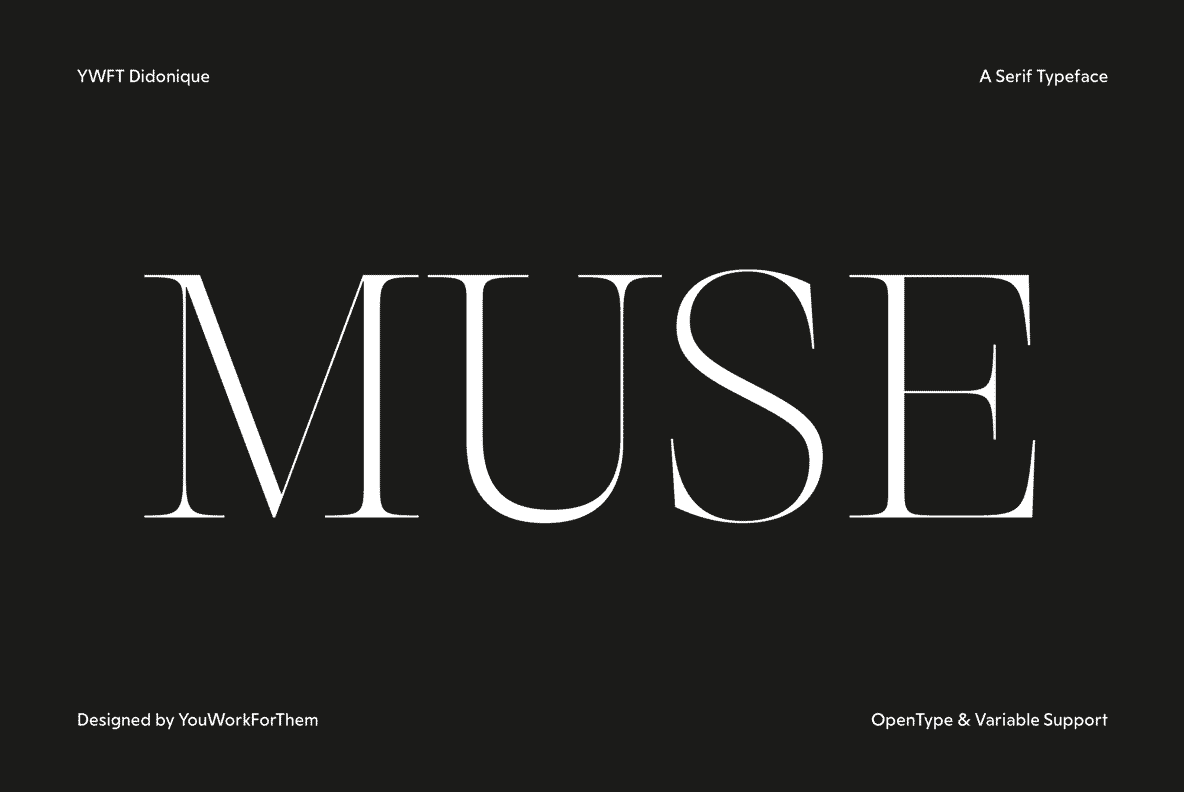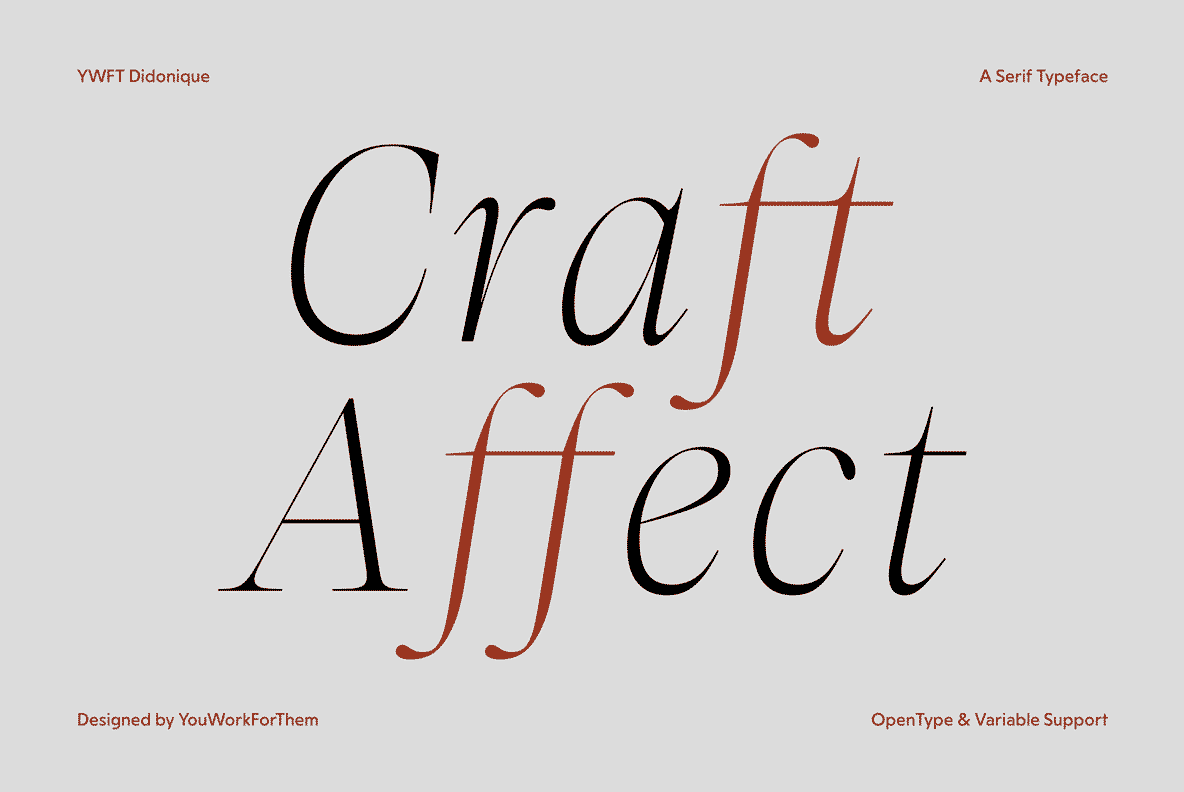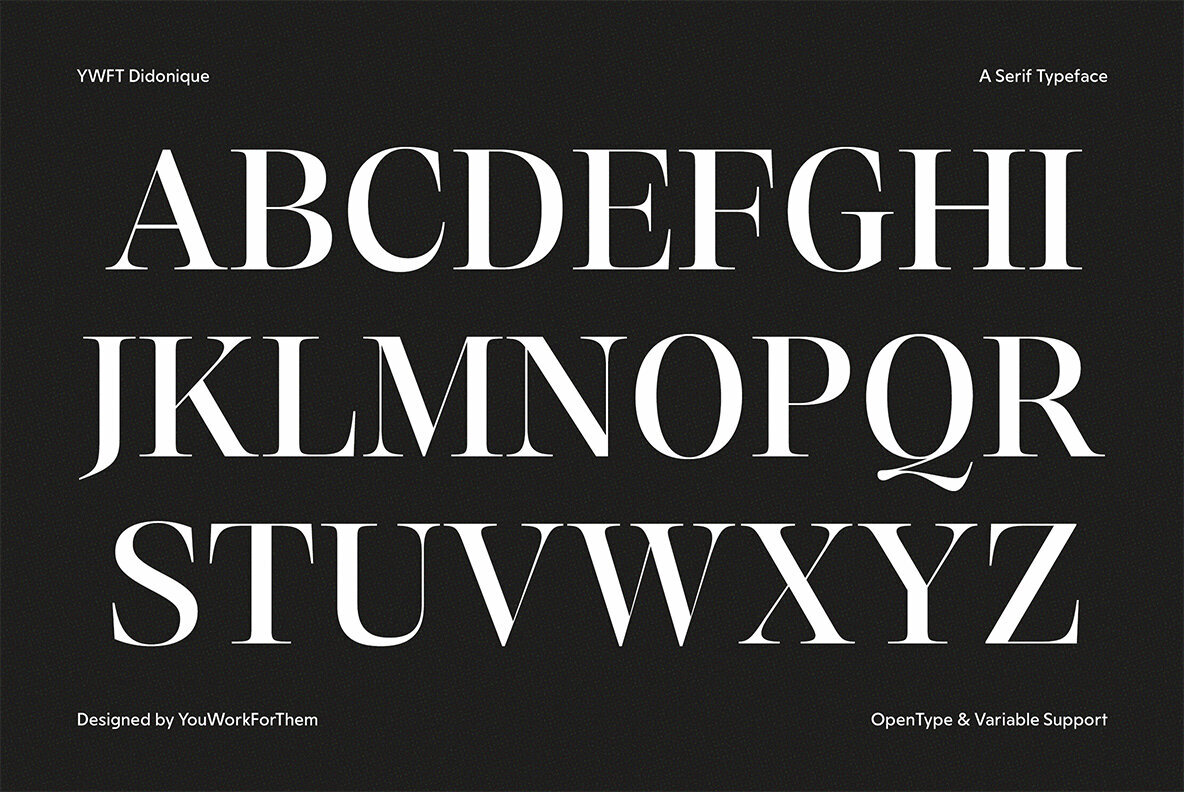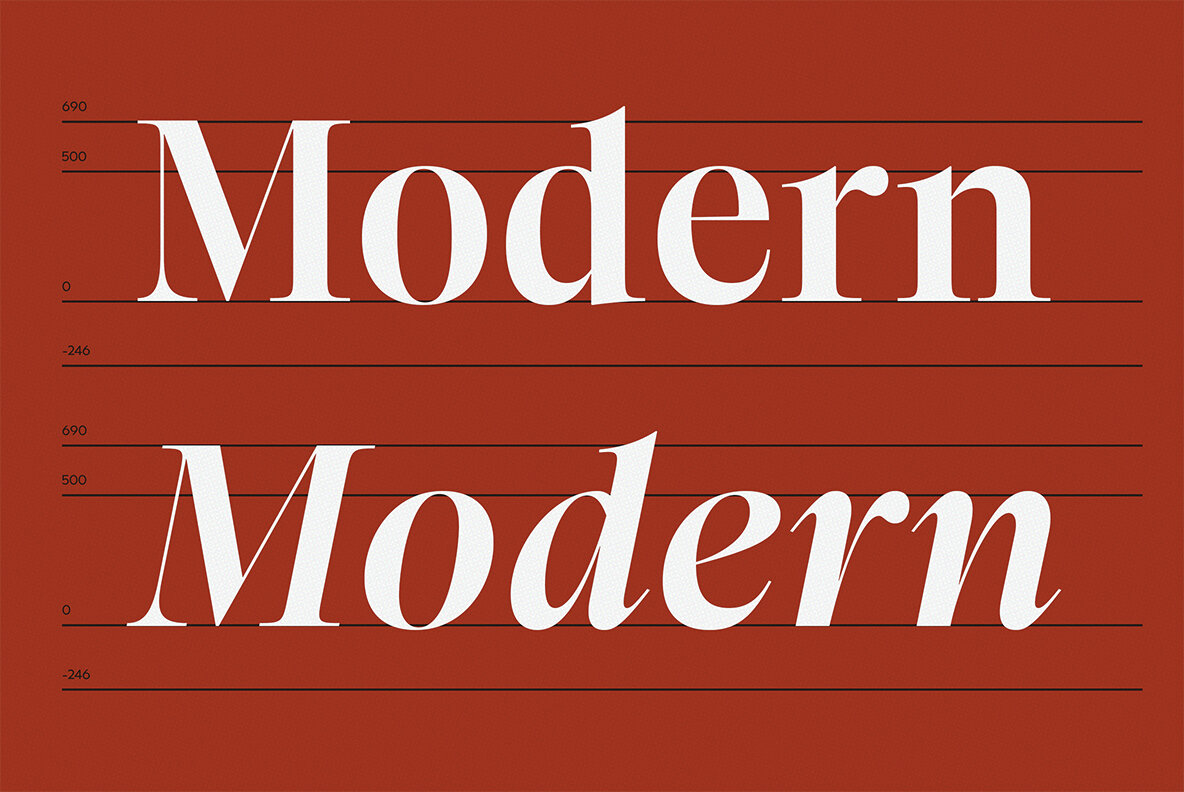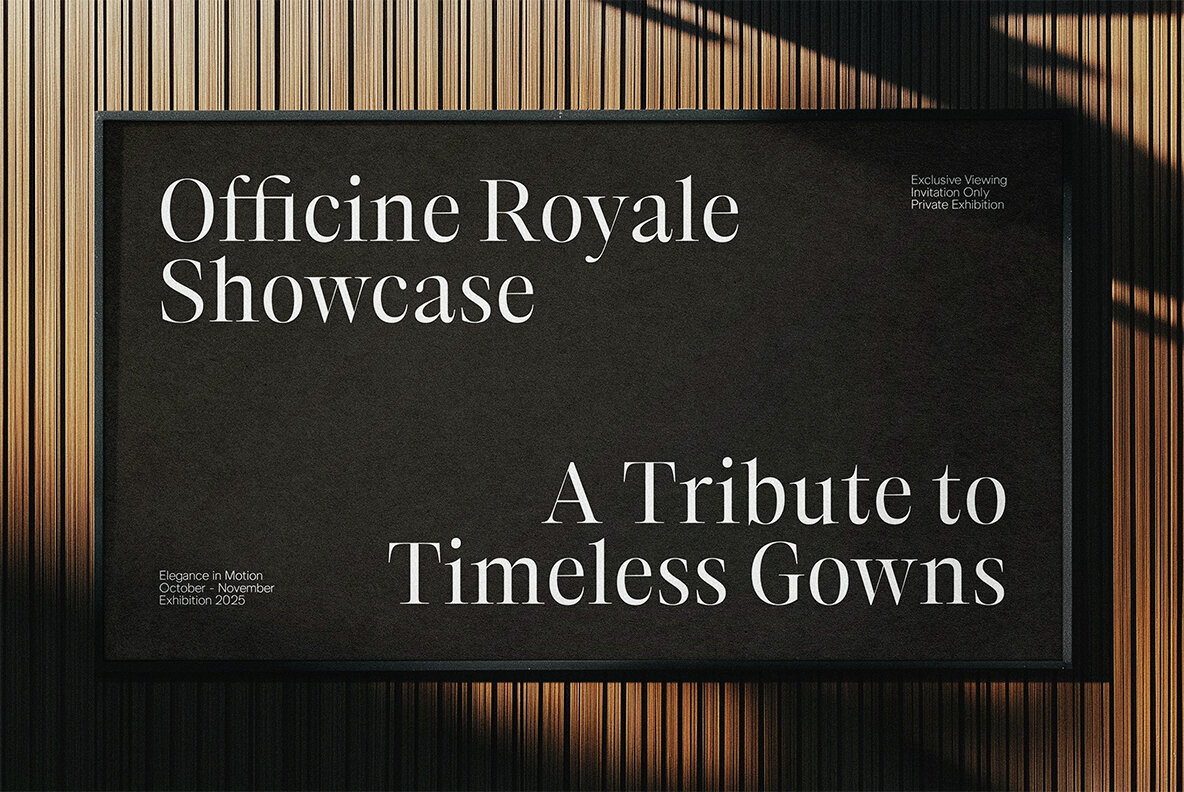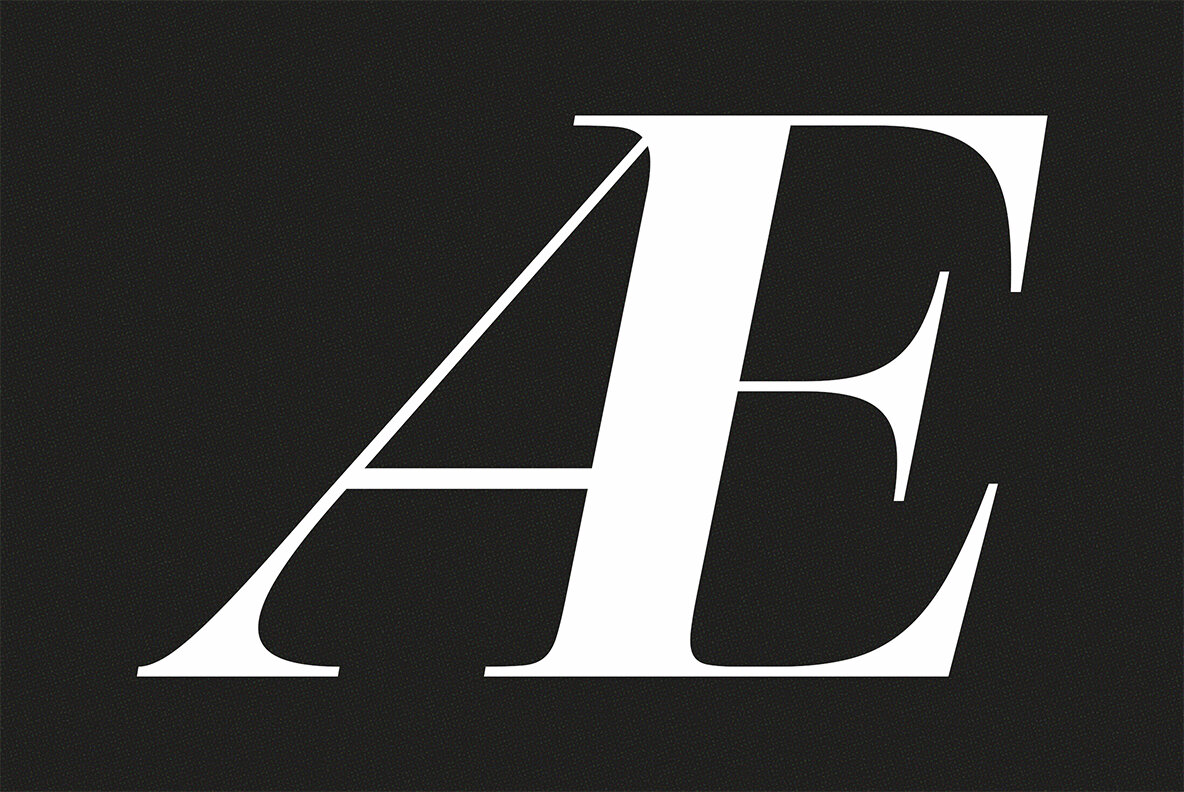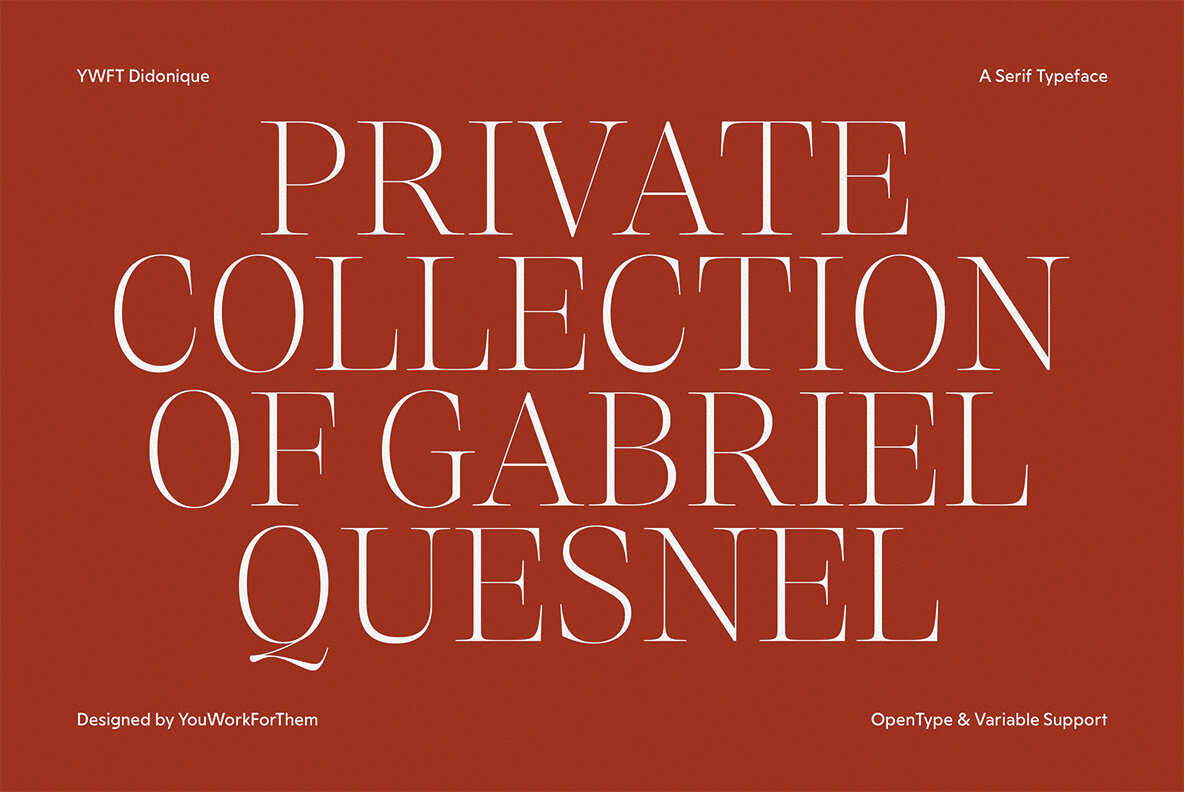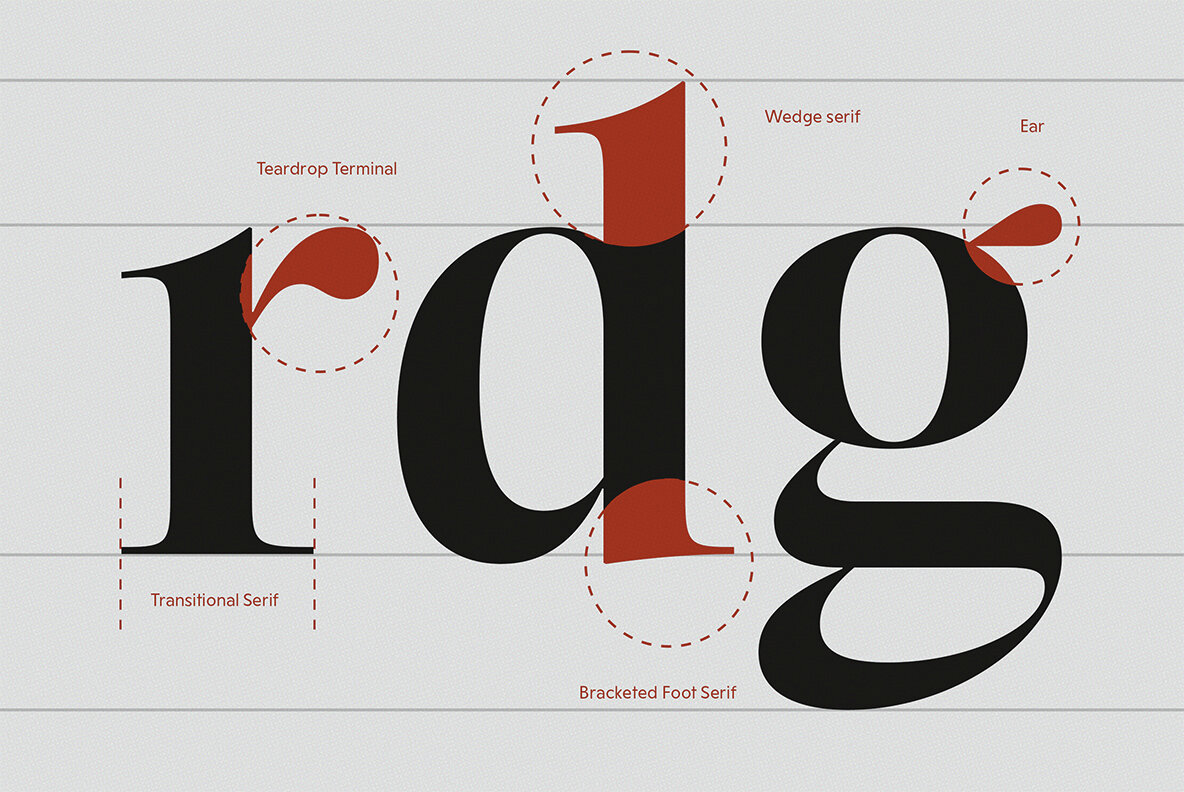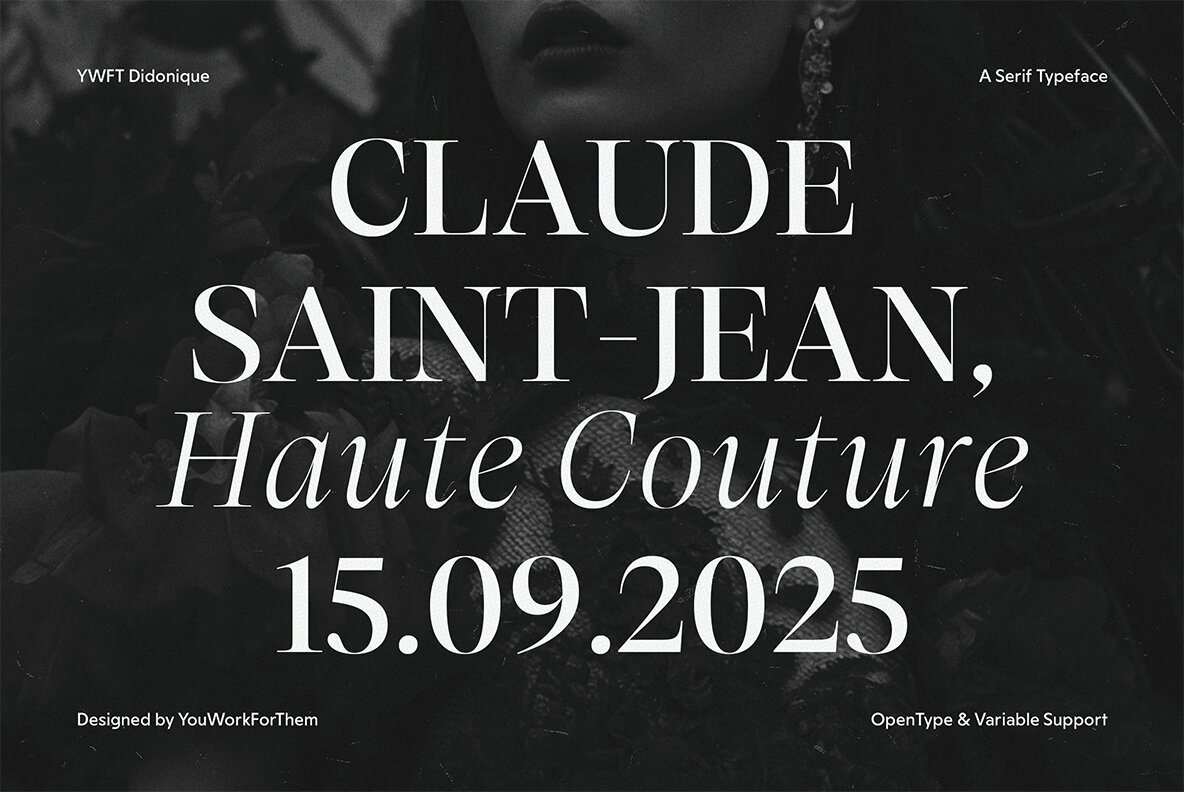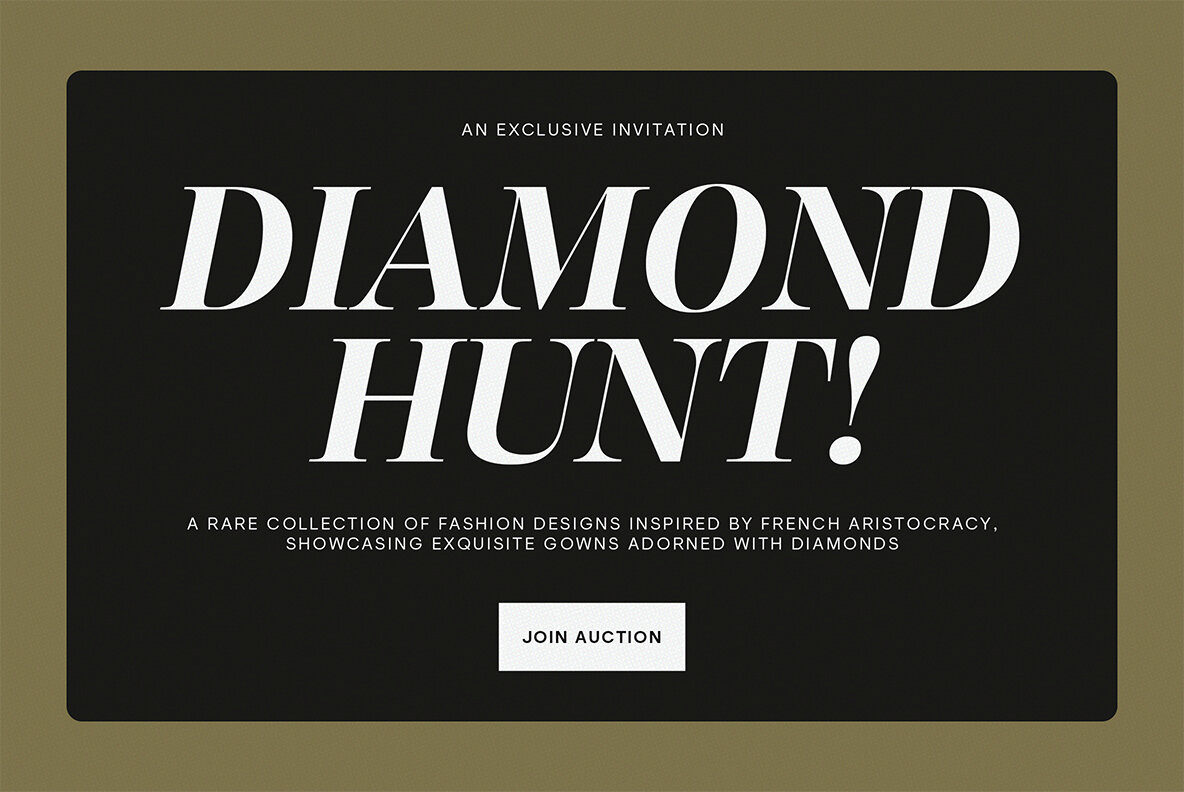
YWFT Didonique Font
Some fonts demand attention. Others exude quiet confidence. YWFT Didonique does both. A masterfully crafted serif font with the refined structure of a Didone typeface, this modern classic delivers the sophistication of high fashion typography while embracing the versatility required for contemporary design. Typography has always been a cornerstone of design, but YWFT Didonique takes it a step further—elevating every composition with its distinct high-contrast letterforms and razor-sharp serifs. Designed with luxury branding, editorial layouts, fashion campaigns, and high-end packaging in mind, this sophisticated serif font adds a sense of authority and elegance to any visual language. A well-rounded type system is essential for any designer, and YWFT Didonique delivers: Typography knows no borders, and neither does YWFT Didonique. With support for over 10 language systems, including Basic Latin, Western European, Turkish, and Greek, this typeface seamlessly integrates into multilingual projects. Crafted with professional designers in mind, YWFT Didonique is more than just a beautiful face—it’s a powerhouse of OpenType features: Luxury magazines, premium fashion branding, fine wine labels—YWFT Didonique thrives in projects that demand both opulence and legibility. Its variable font technology ensures adaptability across web design, motion graphics, and responsive layouts, allowing designers to fine-tune weight and contrast in real time. YWFT Didonique isn’t just another serif—it’s a YouWorkForThem exclusive, available subscription-free (like all of our fonts). Pay once and own it forever, with full compatibility across Adobe Creative Suite, Canva, Figma, and more. Take your designs to a higher level with YWFT Didonique—where timeless elegance meets modern precision. Additional products used for slideshow images:YWFT Didonique: The Intersection of High Fashion and Typography
A Sophisticated Serif Font for the Modern Designer
16 Font Styles, Infinite Creative Possibilities
A Fashion Font with a Global Perspective
Precision in Every Curve: OpenType Features for Advanced Typography
The Ultimate Serif Font for Editorial, Branding, and Digital Projects